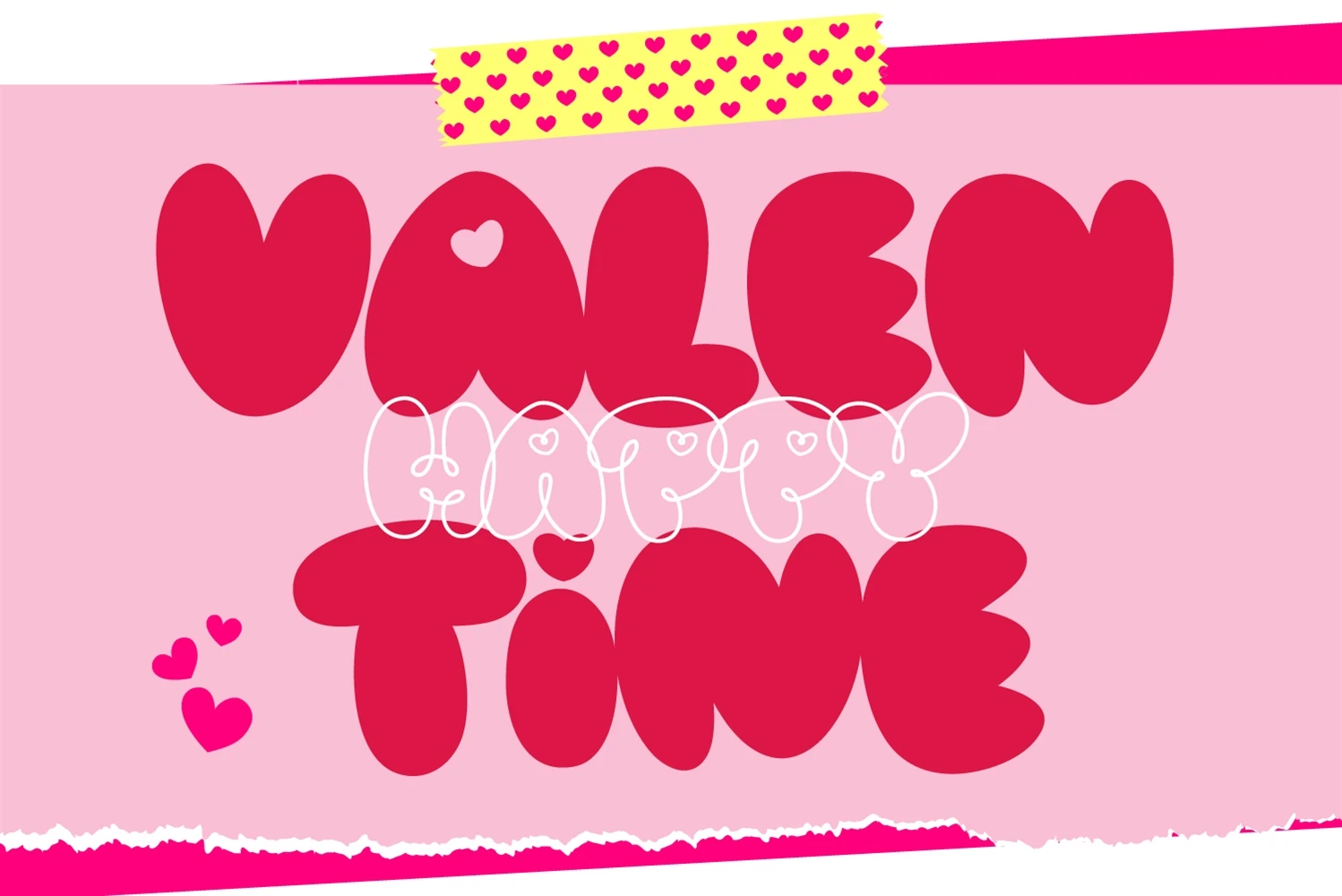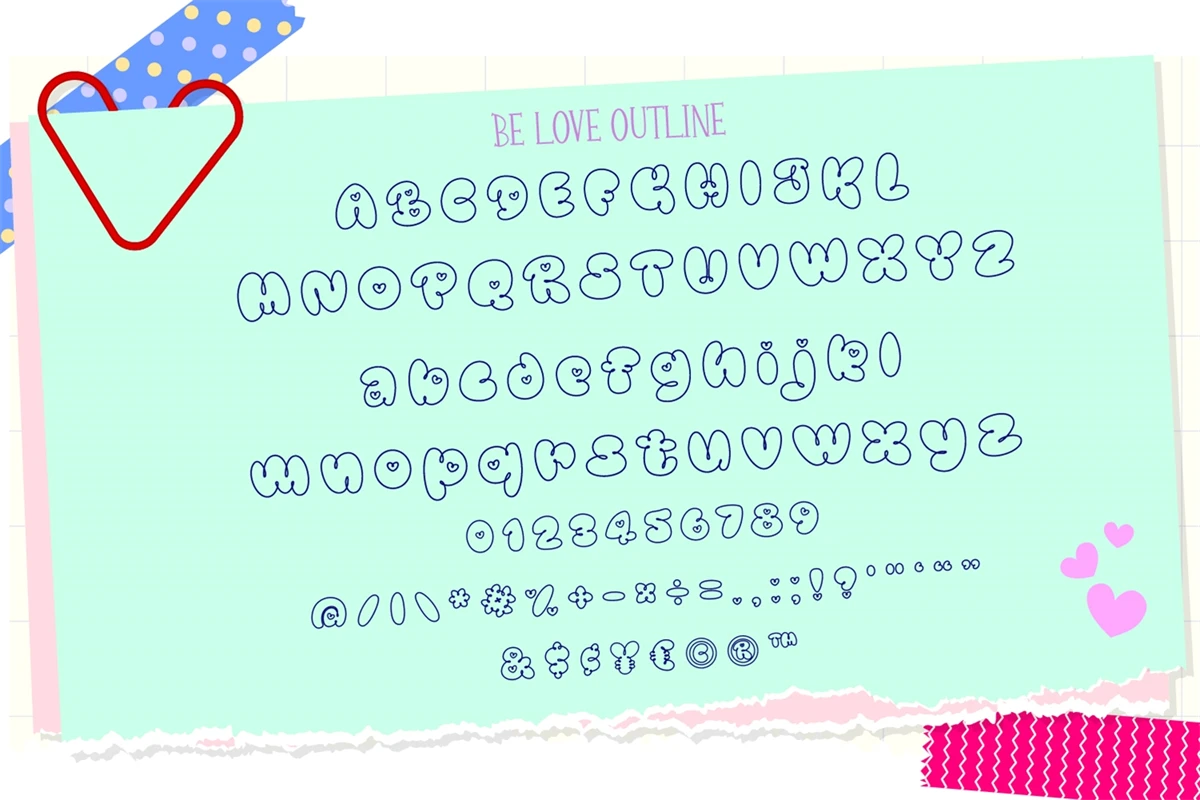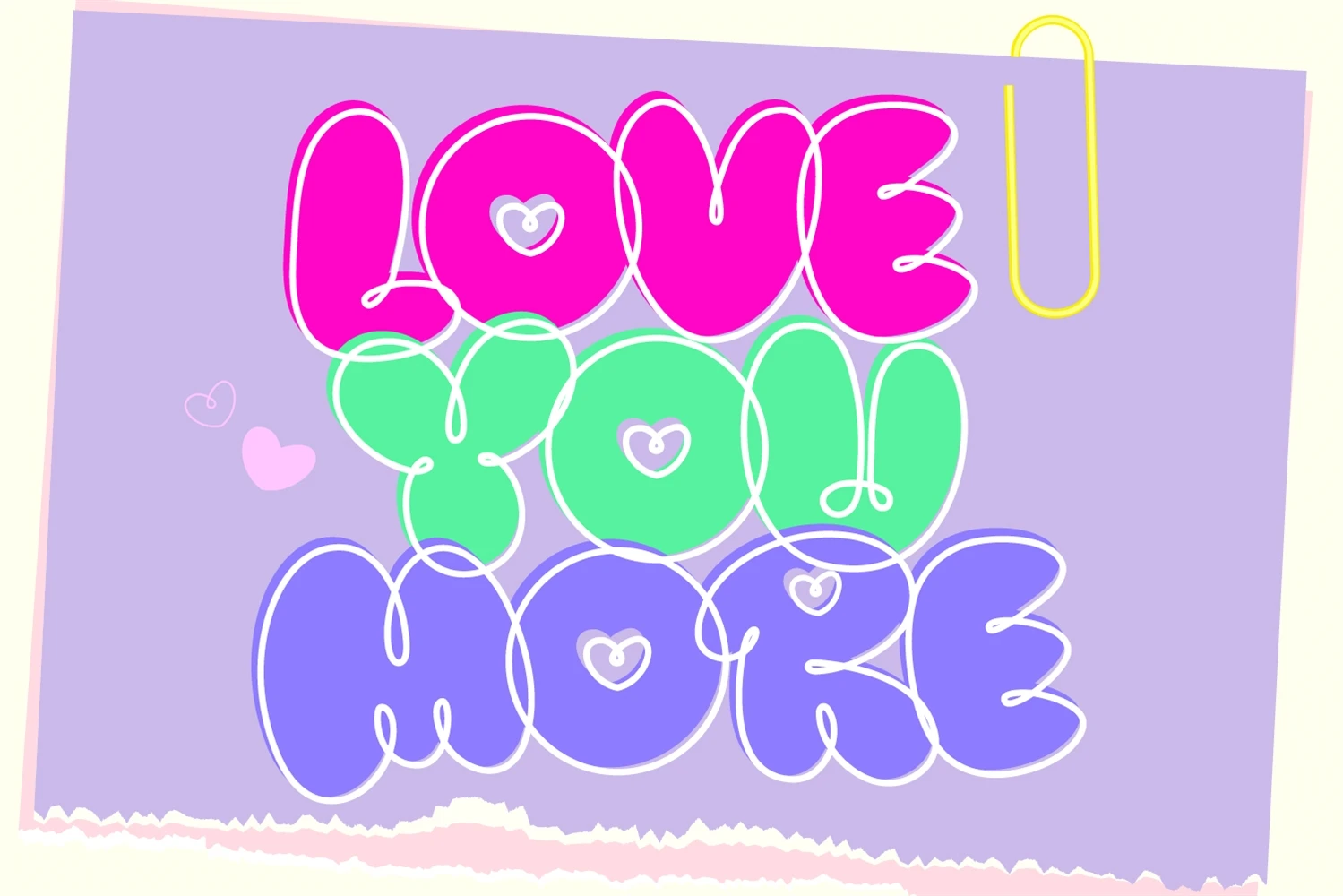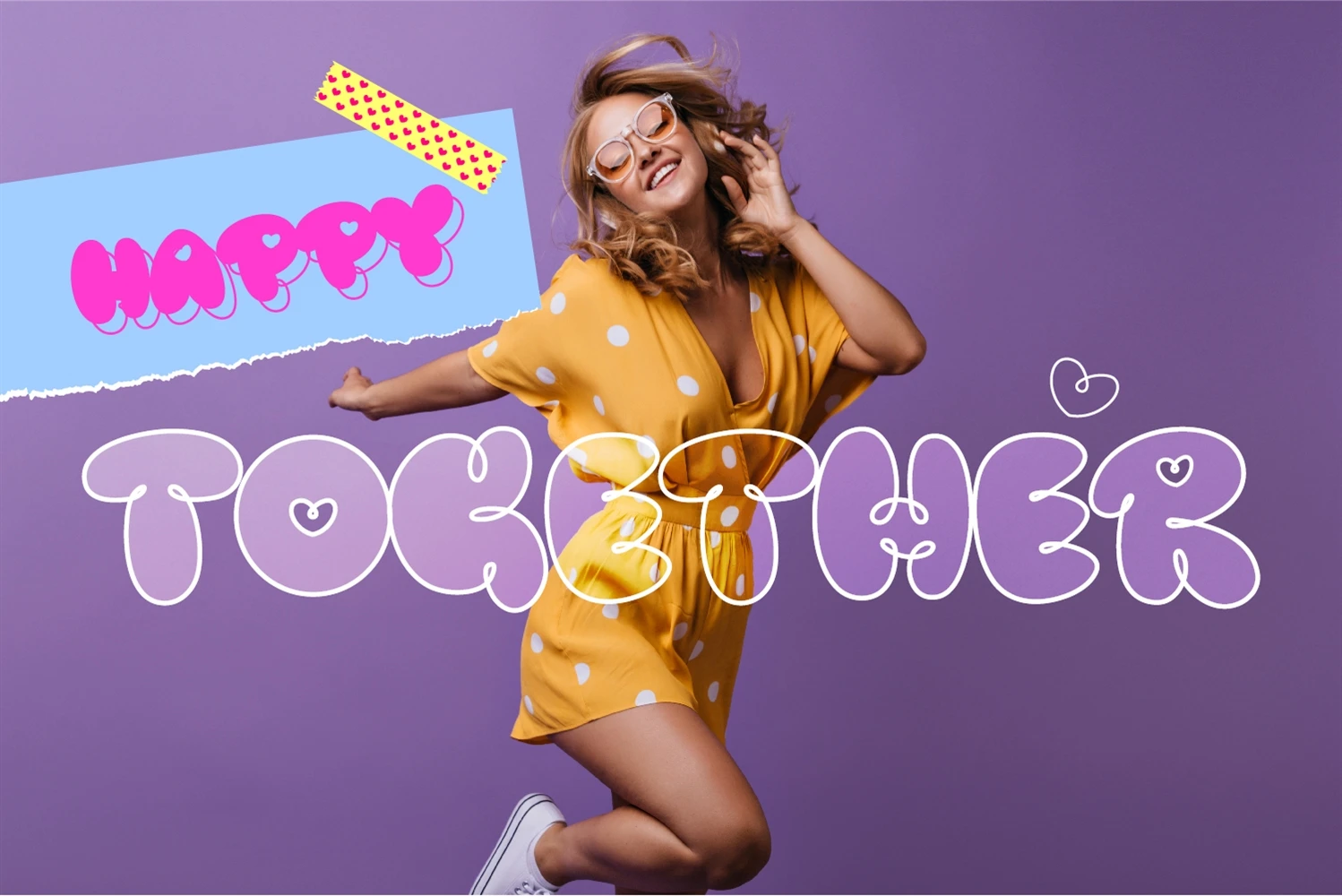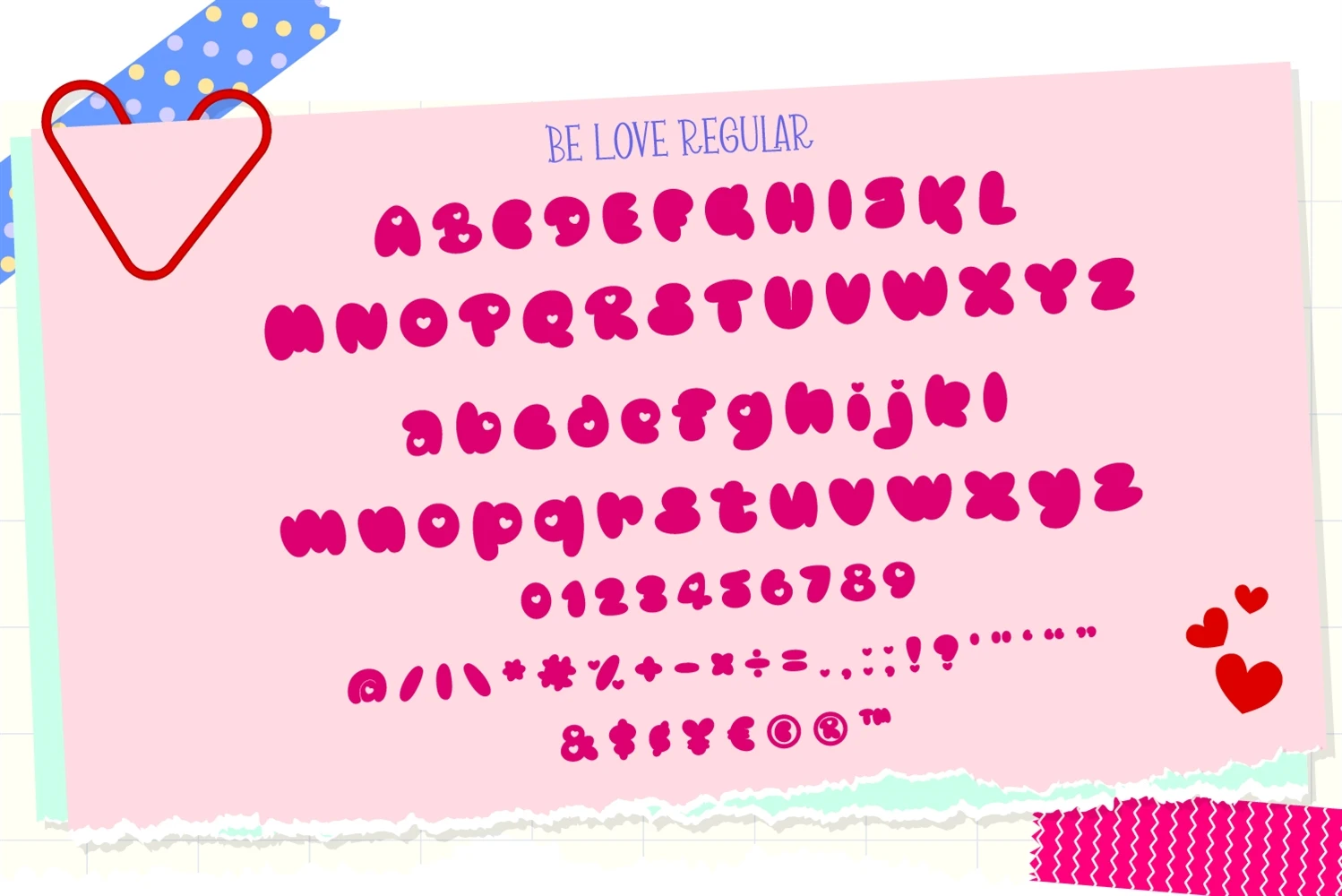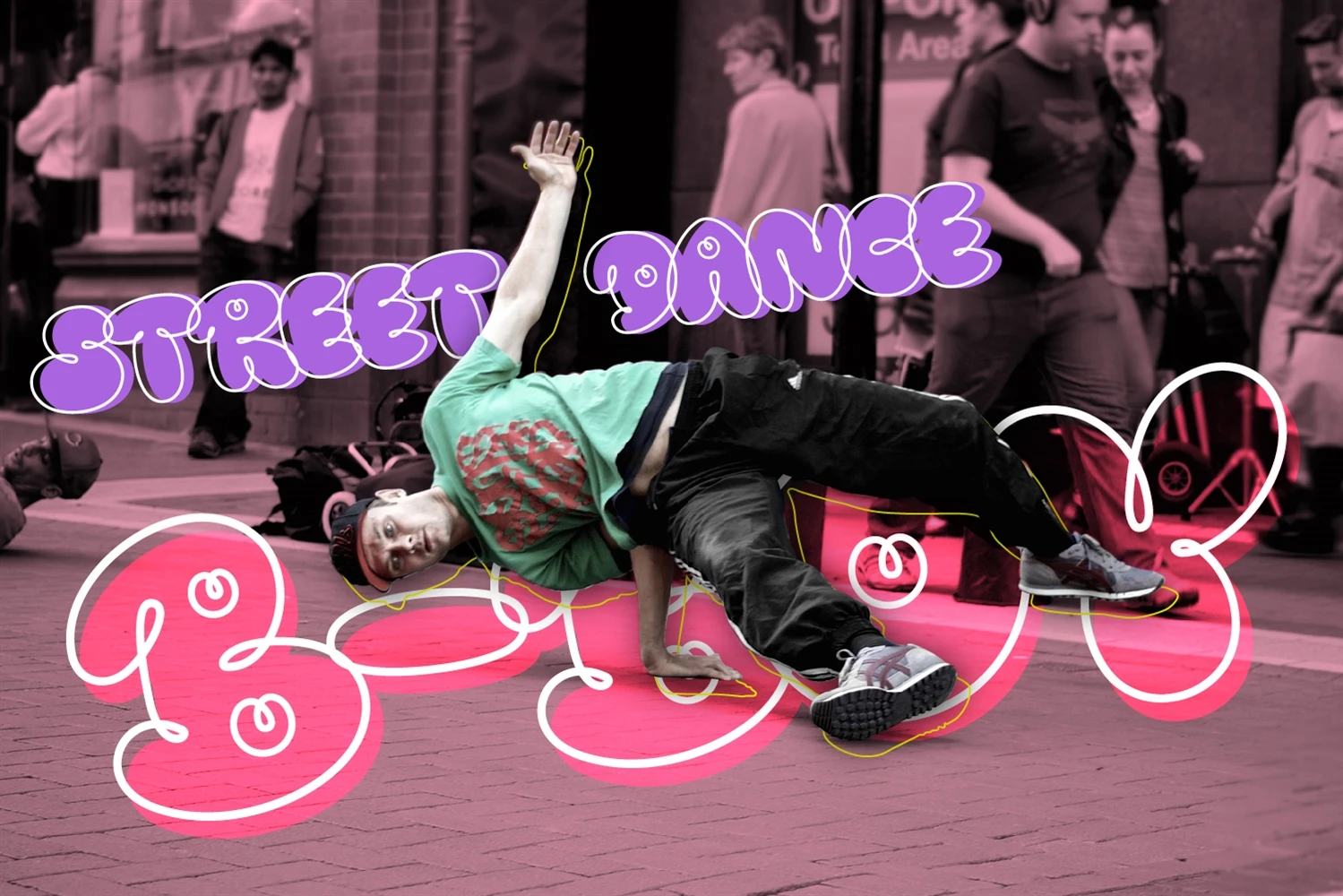
Be Love is a cool-looking and bubbly display font. It embodies playfulness and authenticity and is the perfect choice for a valentines project or street art fashion, T-Shirts, Sportswear, logos, and more!